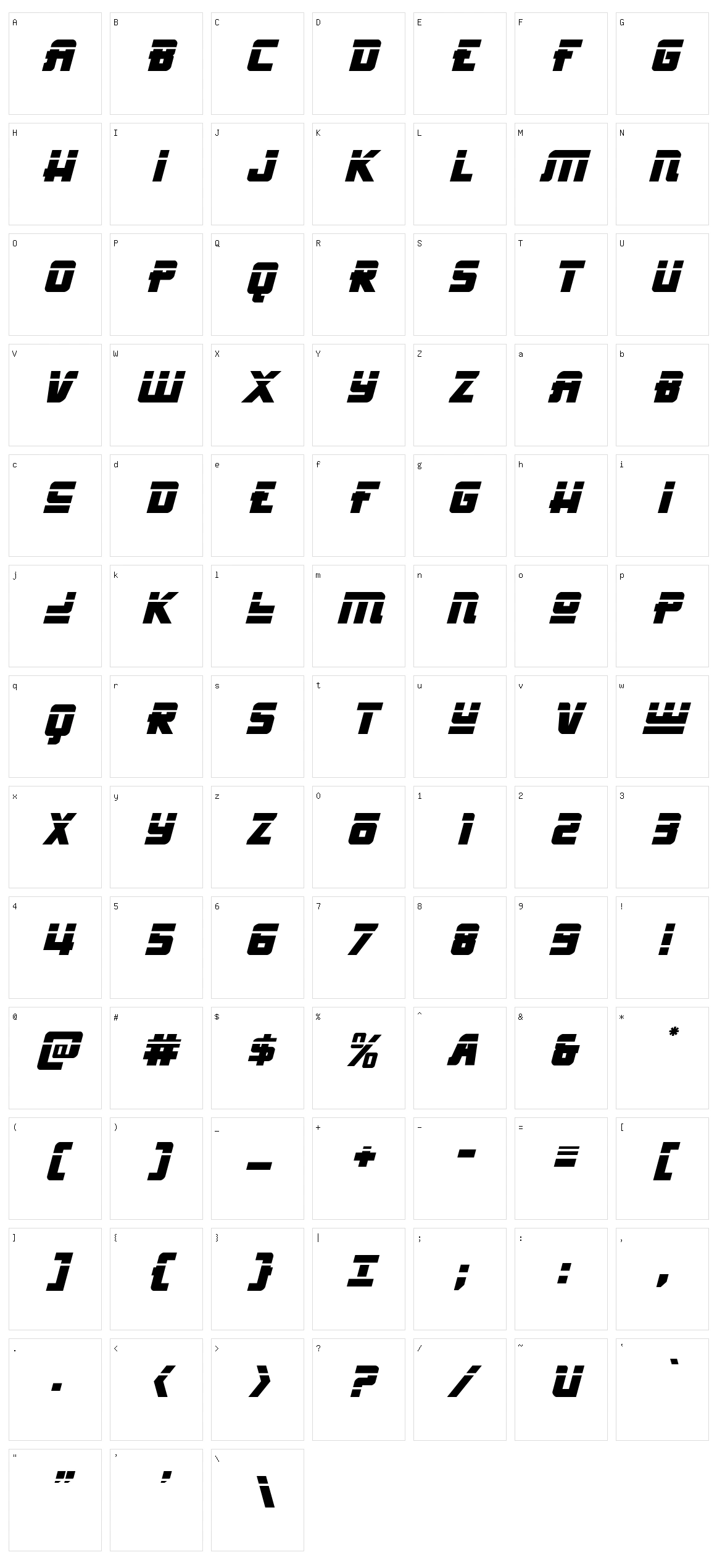
This font comes with the following 17 versions: Regular, Italic, Condensed, Condensed Italic, Expanded, Expanded Italic, Outline, Outline Italic, 3D, 3D Italic, Laser, Laser Italic, Gradient, Gradient Italic, Academy, Academy Italic and Leftalic.